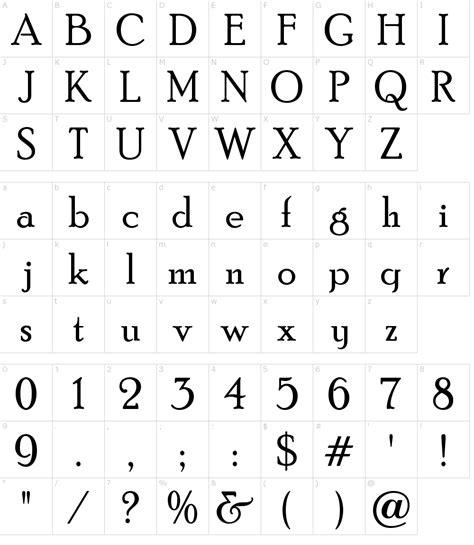
Poor Richard Font . Web poor richard font family was designed by paul hickson and published by red rooster collection. Poor richard contains 4 styles and family package options.
Poor richard contains 4 styles and family package options. Web download poor richard font free! Web this elegant poor richard texture was designed by the best graphic designer paul hickson and released by another designer steve jackaman in 1997. Design copyright © p.l.digital, inc., data copyright projective solutions, inc., additional data copyright type solutions, inc. Web poor richard font family was designed by paul hickson and published by red rooster collection.
Web this elegant poor richard texture was designed by the best graphic designer paul hickson and released by another designer steve jackaman in 1997. Web this elegant poor richard texture was designed by the best graphic designer paul hickson and released by another designer steve jackaman in 1997. Web poor richard font family was designed by paul hickson and published by red rooster collection. Poor richard contains 4 styles and family package options. Web download poor richard font free! Design copyright © p.l.digital, inc., data copyright projective solutions, inc., additional data copyright type solutions, inc.
Design copyright © p.l.digital, inc., data copyright projective solutions, inc., additional data copyright type solutions, inc. Web download poor richard font free! Web poor richard font family was designed by paul hickson and published by red rooster collection. Poor richard contains 4 styles and family package options. Web this elegant poor richard texture was designed by the best graphic designer paul hickson and released by another designer steve jackaman in 1997.
Web this elegant poor richard texture was designed by the best graphic designer paul hickson and released by another designer steve jackaman in 1997. Web poor richard font family was designed by paul hickson and published by red rooster collection. Poor richard contains 4 styles and family package options. Design copyright © p.l.digital, inc., data copyright projective solutions, inc., additional data copyright type solutions, inc. Web download poor richard font free!
Poor richard contains 4 styles and family package options. Web download poor richard font free! Web poor richard font family was designed by paul hickson and published by red rooster collection. Web this elegant poor richard texture was designed by the best graphic designer paul hickson and released by another designer steve jackaman in 1997. Design copyright © p.l.digital, inc., data copyright projective solutions, inc., additional data copyright type solutions, inc.